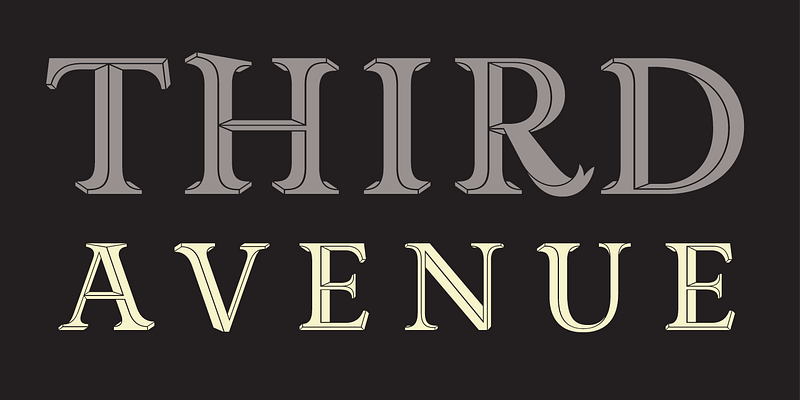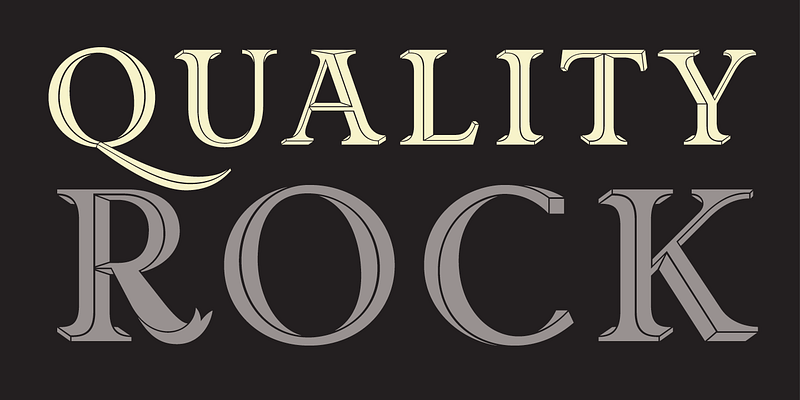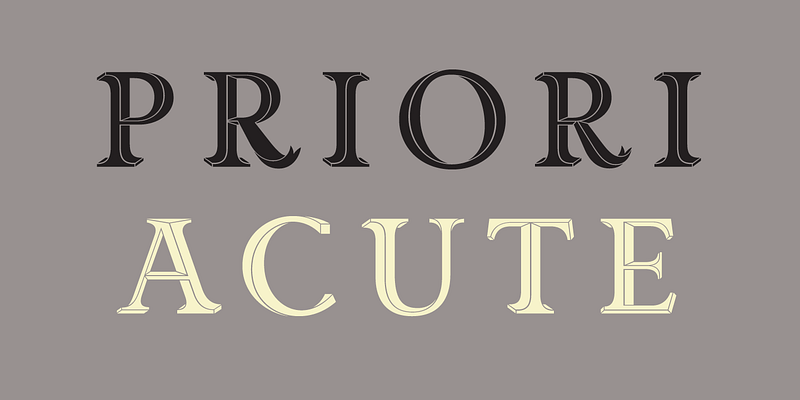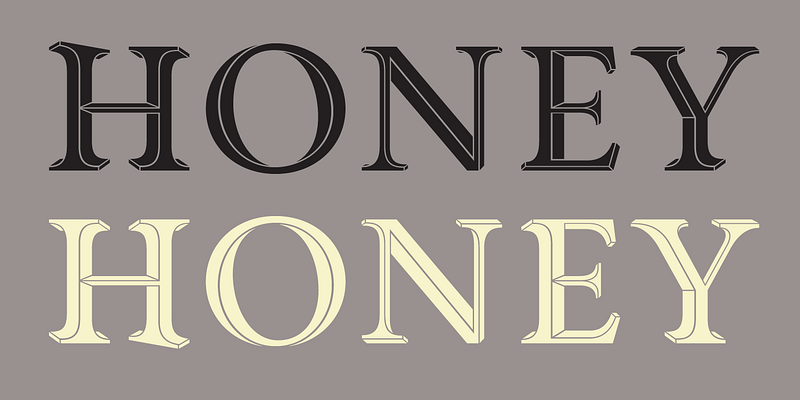
Priori Acute is the latest addition to the Priori family. It is the result of a series of experiments into three-dimensional letter form design inspired by 19th Century display and artistic printing types. However, instead of simply adding drop shadows or fake relief to create the illusion of depth, the designers at Jonathan Barnbrook’s studio took their cue from such diverse sources as the angles on the Stealth bomber and the visual conceit in the work of the Dutch graphic artist M.C. Escher.
The resulting forms are a playful exhibit of incongruous perspectives and twisting shapes that fold into themselves tricking the eye to shift the plane. At first glance and at small sizes the effect is subtle and the original letter forms themselves remain intact, retaining the history of British early 20th century typography, which was an inspiration for the original Priori family. But when blown up, the individual Priori Acute characters become beautifully animated and work well in selective situations such as initial caps, short headlines or logo design.
As a bonus, the Priori Acute font includes a collection of ornamental elements that can be combined into unlimited mesmerizing patterns.